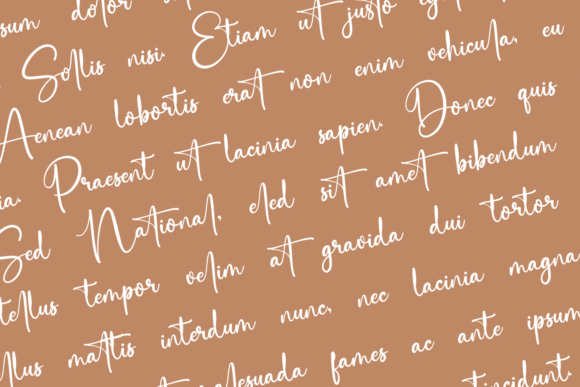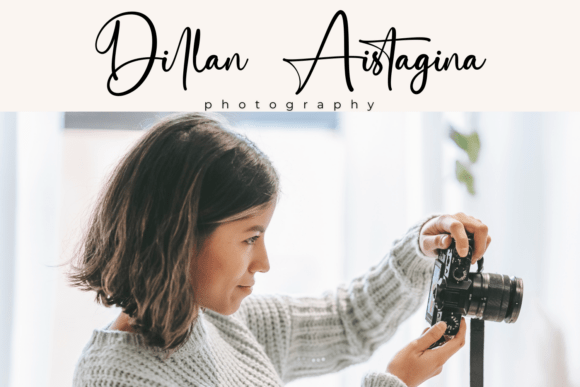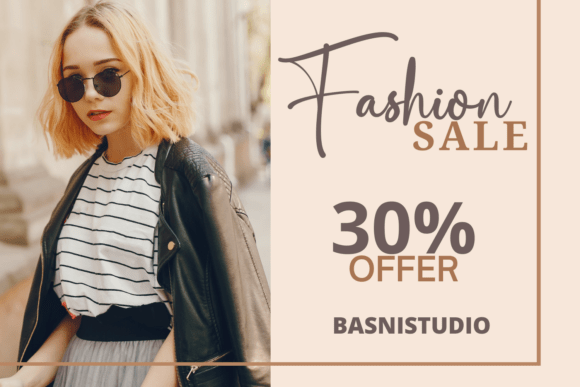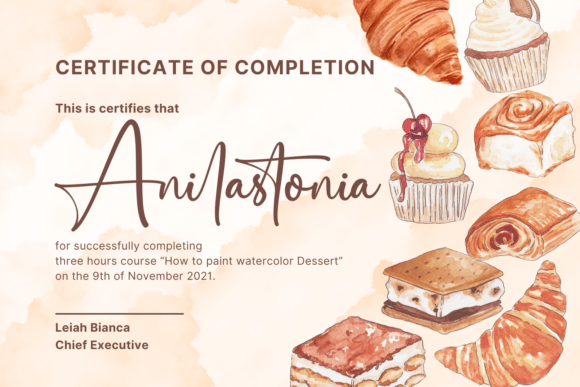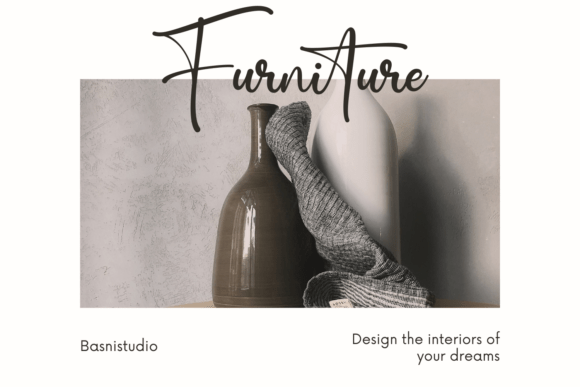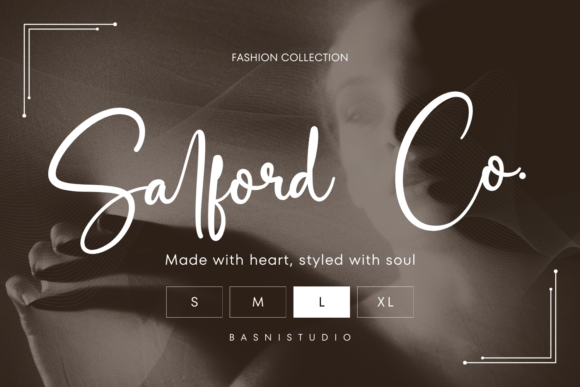
Introduction to Saitingan Font
Have you ever found yourself in a creative frenzy, staring at a blank page, desperately searching for that perfect touch to elevate your design? You know, that spark that sets your project apart from the rest? For designers, this moment is all too familiar. It’s the moment when the right font can make or break a design. Enter the Saitingan Font, a game-changing addition to your design arsenal.
This high-quality, handwritten font is a treasure trove of creative possibilities. With its elegant and versatile design, it’s perfect for logos, quotes, greeting cards, and more. The authentic handwritten feel, created with real pen strokes, gives your designs a natural, organic look that’s sure to captivate your audience. Whether you’re working on a branding project, social media graphics, or invitations, the Saitingan Font is an indispensable design resource that will give you the creative edge you need.
Key Features of Saitingan Font
- The font features a transparent background, making it easy to layer and manipulate within various design applications.
- The Saitingan Font is characterized by its intricate, hand-drawn design, adding a touch of elegance and sophistication to any creative project.
- This font is perfect for designers seeking a high-quality, free design resource to enhance their creative projects, including graphic design, web design, and more.
Honest Review: Saitingan Font
I recently came across the Saitingan Font, and I must say it’s a high-quality design resource that can elevate any creative project. The font is perfect for those who need a unique, modern look without breaking the bank.
What works well is the font’s versatility. It can be used for a wide range of applications, from digital design to print materials. The Saitingan Font also comes with a transparent background, making it easy to use in various design scenarios.
Here are some key features of the Saitingan Font:
- High-quality, modern design
- Perfect for digital and print design projects
However, I did encounter some limitations with the font. The character set is somewhat limited, and the font may not be suitable for projects that require a wide range of characters. ⚠️
Overall, I’m impressed with the Saitingan Font. It’s a great addition to any designer’s toolkit, and I would recommend it to anyone looking for a high-quality, modern font.
Introduction to Saitingan Font
Tips for Getting the Most Out of Saitingan Font
To get the most out of Saitingan Font, use it with a transparent background to create a clean and modern look. You can also experiment with different font sizes and styles to add visual interest to your design.
Common Use Cases for Saitingan Font
Saitingan Font is commonly used for creating logos, social media graphics, and other visual elements for creative projects. It’s also great for adding a touch of elegance and sophistication to presentations and documents.